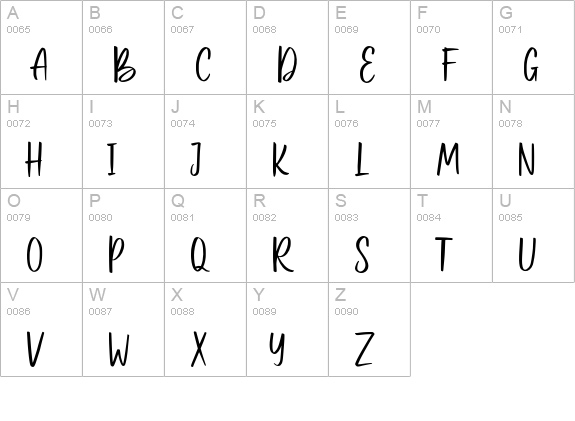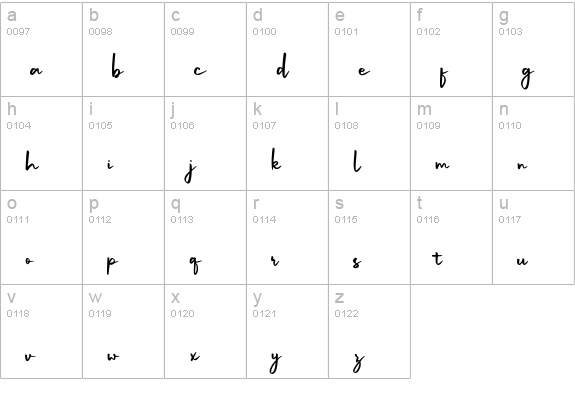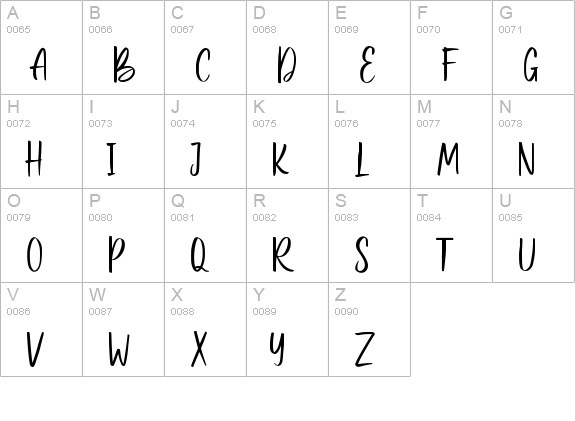
Belle Amour font is a stunning display typeface that exudes elegance and sophistication. With its delicate strokes and ornate details, this font is perfect for adding a touch of romance to your designs. Whether you're creating wedding invitations, greeting cards, or branding materials, Belle Amour font will elevate your projects with its timeless beauty.